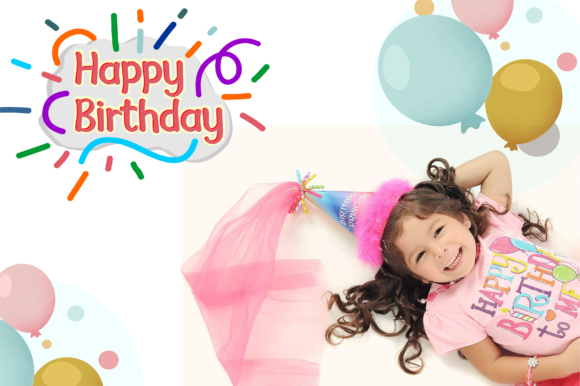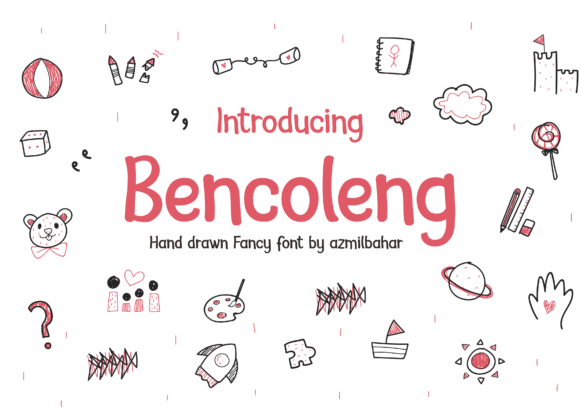
Bencoleng Font: The Cute and Whimsical Comic Font You Need for Your Design Projects
Are you a designer or crafter looking for a unique and playful font to add a personal touch to your design projects? Look no further than Bencoleng Font! This adorable comic font is sure to capture the hearts of anyone who lays eyes on it. With its cute and whimsical charm, Bencoleng Font is the perfect addition to any design project that needs a dash of personality.
What is Bencoleng Font?
Bencoleng Font is a one-of-a-kind typeface that is sure to make your design projects stand out from the crowd. This comic font is designed to be fun and playful, with a unique charm that is hard to resist. Whether you’re working on a children’s book, a craft project, or a marketing campaign, Bencoleng Font is the perfect choice for adding a touch of whimsy and personality.
Characteristics of Bencoleng Font
So, what makes Bencoleng Font so special? Here are just a few of its key characteristics:
- Cute and Whimsical: Bencoleng Font is designed to be adorable and playful, with a charm that is sure to capture the hearts of anyone who sees it.
- Unique and One-of-a-Kind: This font is truly one-of-a-kind, with a distinctive style that sets it apart from other fonts.
- Perfect for Design Projects: Whether you’re working on a children’s book, a craft project, or a marketing campaign, Bencoleng Font is the perfect choice for adding a touch of personality.
- Easily Readable: Despite its playful nature, Bencoleng Font is still easily readable, making it perfect for use in a variety of design projects.
Uses for Bencoleng Font
So, what can you use Bencoleng Font for? The possibilities are endless! Here are just a few ideas to get you started:
- Children’s Books: Bencoleng Font is perfect for use in children’s books, adding a touch of whimsy and personality to your story.
- Craft Projects: Whether you’re working on a scrapbooking project, a card, or a gift tag, Bencoleng Font is a great choice for adding a personal touch.
- Marketing Campaigns: Bencoleng Font can also be used in marketing campaigns, adding a touch of personality and whimsy to your advertising materials.
- Social Media Graphics: Use Bencoleng Font to add a touch of personality to your social media graphics, making them stand out from the crowd.
Tips for Using Bencoleng Font
Here are a few tips for using Bencoleng Font in your design projects:
- Use it Sparingly: While Bencoleng Font is adorable, it can be overwhelming if used too much. Use it sparingly to add a touch of personality to your design.
- Pair it with Other Fonts: Bencoleng Font pairs well with other fonts, so don’t be afraid to experiment with different combinations.
- Experiment with Colors: Bencoleng Font looks great in a variety of colors, so don’t be afraid to experiment and find the perfect hue for your design.
| Font Name | Bencoleng Font |
| Author | Brothers Graphic |
In conclusion, Bencoleng Font is a cute and whimsical comic font that is sure to add a personal touch to any design project. With its unique charm and easily readable design, it’s perfect for use in a variety of projects, from children’s books to marketing campaigns. So why not give Bencoleng Font a try and see the difference it can make in your design projects?
Whether you’re a designer or crafter, Bencoleng Font is a great addition to your font collection. Its playful and whimsical nature makes it perfect for adding a touch of personality to your designs, and its easily readable design ensures that your message will be conveyed clearly. So go ahead, give Bencoleng Font a try, and see the difference it can make in your design projects!